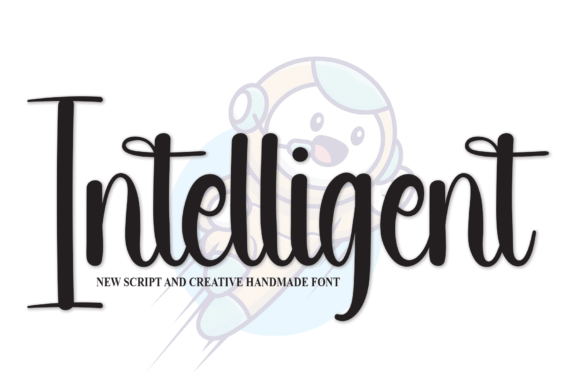
Dive into the world of urban fashion with Intelligent Font, the ultimate streetwear design tool. This captivating handwritten font exudes a cool and relaxed vibe, effortlessly capturing the essence of street culture. With its wide range of applications, from greeting cards to bold headlines, Intelligent Font promises to add a touch of authenticity and personality to your creative projects.
Imagine your designs adorned with Intelligent Font's unique charm. Its carefully crafted characters dance across the page, conveying a sense of effortless style and individuality. This versatile font is not just a collection of letters; it's an expression of urban culture, a reflection of the vibrant energy that pulsates through the streets.
Step into the spotlight with Intelligent Font and let your designs speak volumes. Its natural flow and authentic handwritten style will draw attention and make a lasting impression. Whether you're creating eye-catching logos, trendy apparel designs, or captivating social media graphics, Intelligent Font has the power to elevate your work to new heights.
With Intelligent Font, you'll find endless possibilities to express yourself creatively. Its adaptability knows no bounds, allowing you to explore a vast spectrum of design styles. From playful and whimsical to edgy and bold, Intelligent Font seamlessly adapts to your vision, becoming an extension of your creative spirit.
Don't settle for ordinary fonts. Embrace the extraordinary with Intelligent Font. Its unique charm and urban flair will transform your designs into captivating works of art, leaving an indelible mark on your audience. Experience the power of Intelligent Font today and unlock a world of creative possibilities.